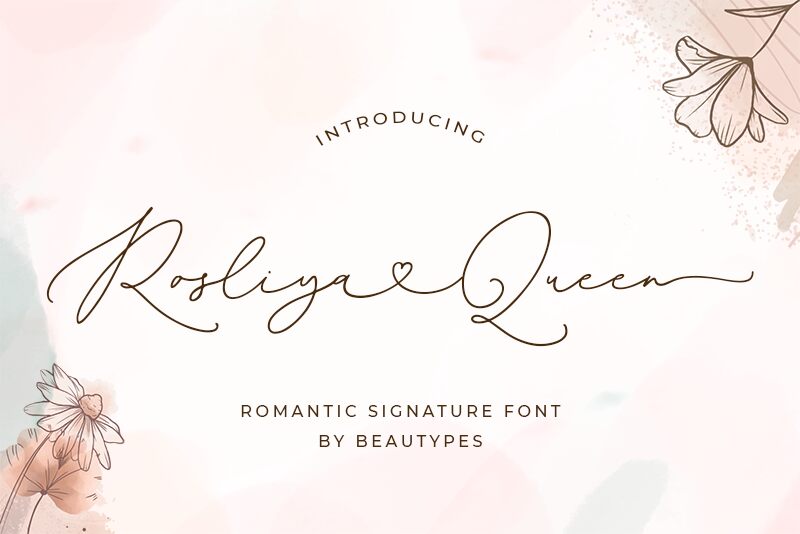
Rosliya Queen font is a handwritten typeface by Beautypes with flowing letters that proudly stand on the page like stunning models on a catwalk. They shine with an elegant display as they come together to create a natural flow that copies a realistic signature-style handwriting. These letters connect naturally as well with wispy endings, reserving, however, a unique style for the capital letters, with a calligraphic warmth showcased at every curve.
Its chic display immediately draws the readers’ attention which is why it can be used for logotypes and branding designs within the fashion industry, invitations and RSVP cards, social media posts, blogs, magazines, etc. But nothing says love like a gentle stroke, so feel free to feature it in your romantic projects for personalized gifts or dedicated greeting and birthday cards, as well as book covers, advertisements, and quotes.